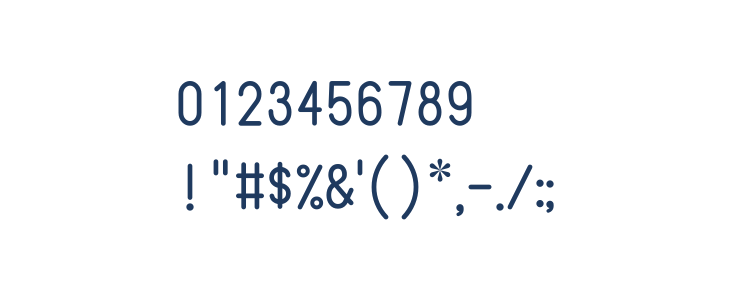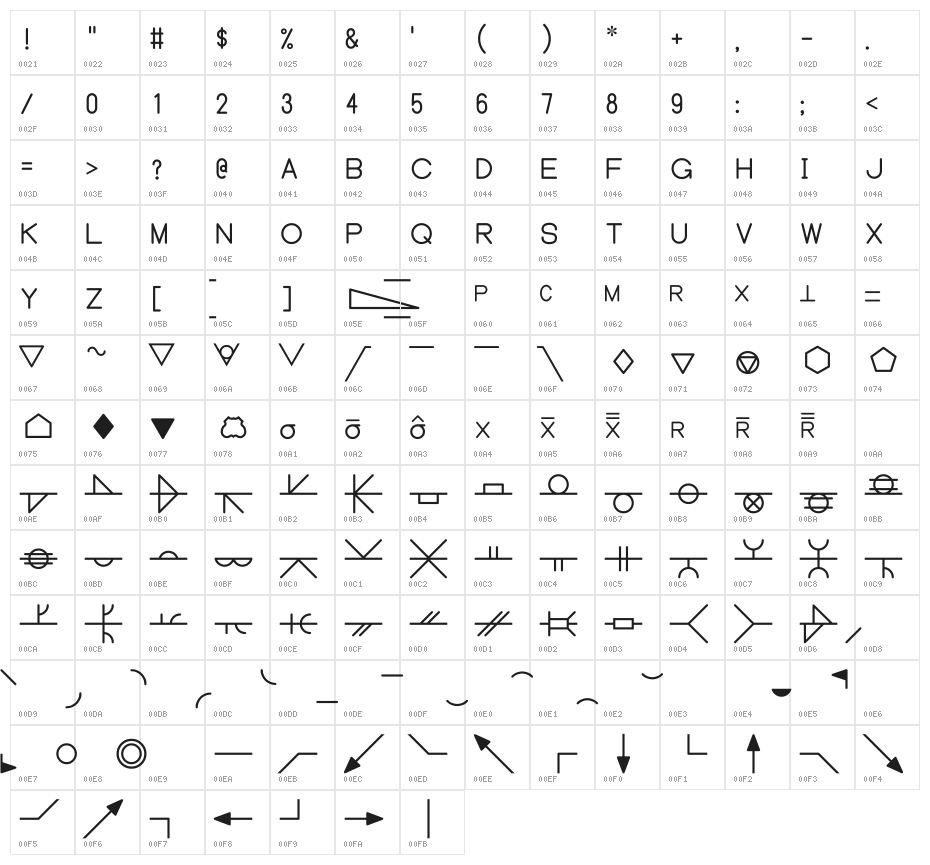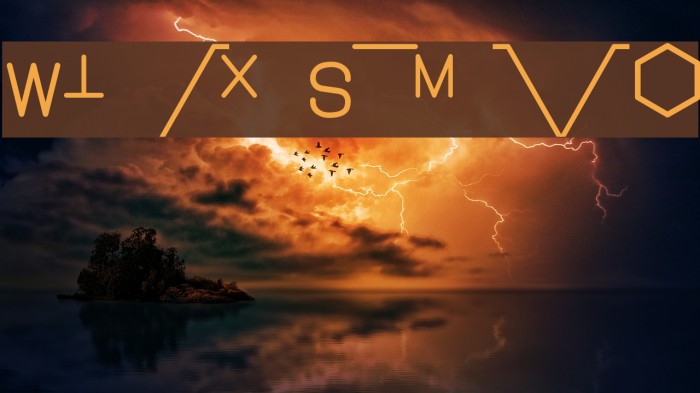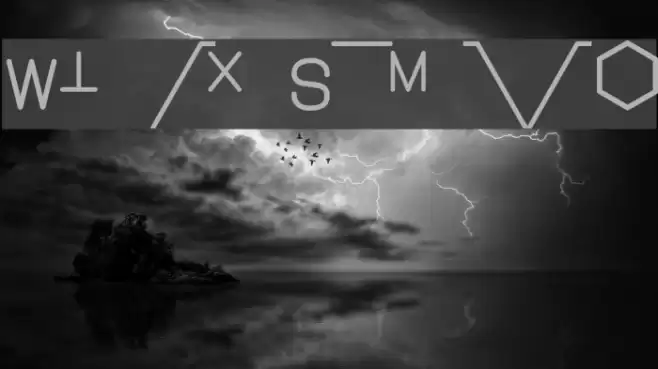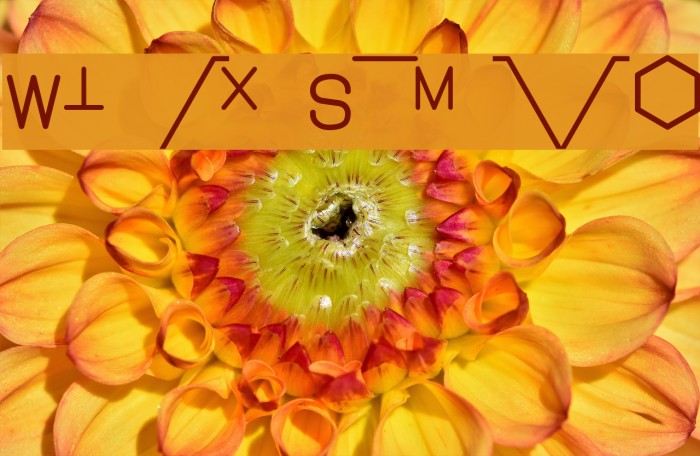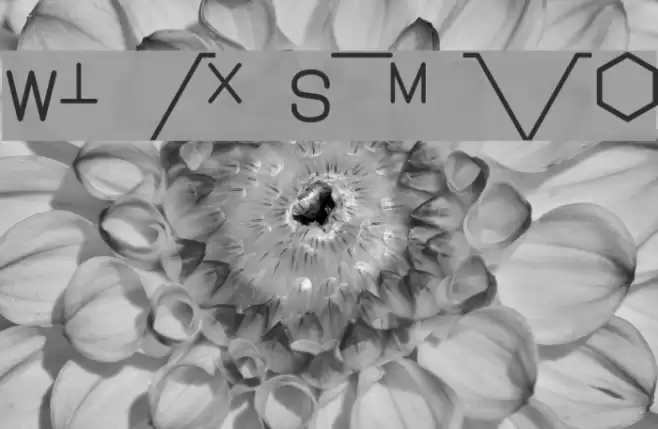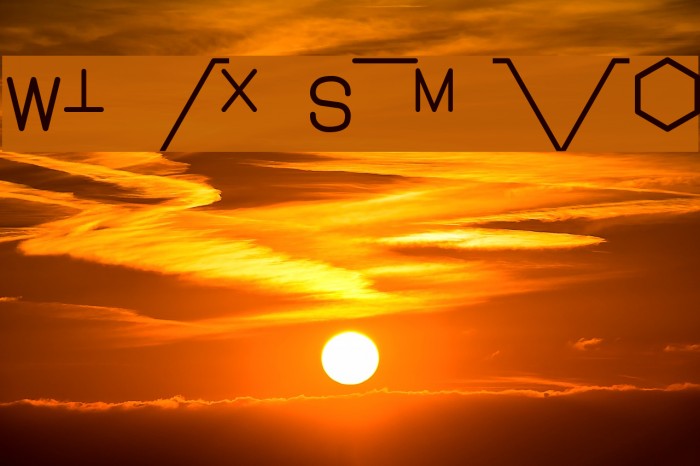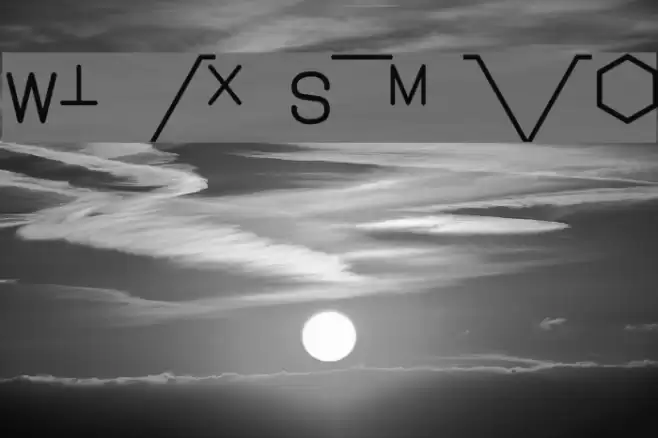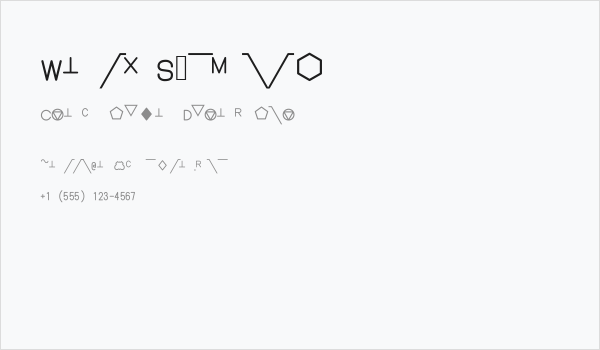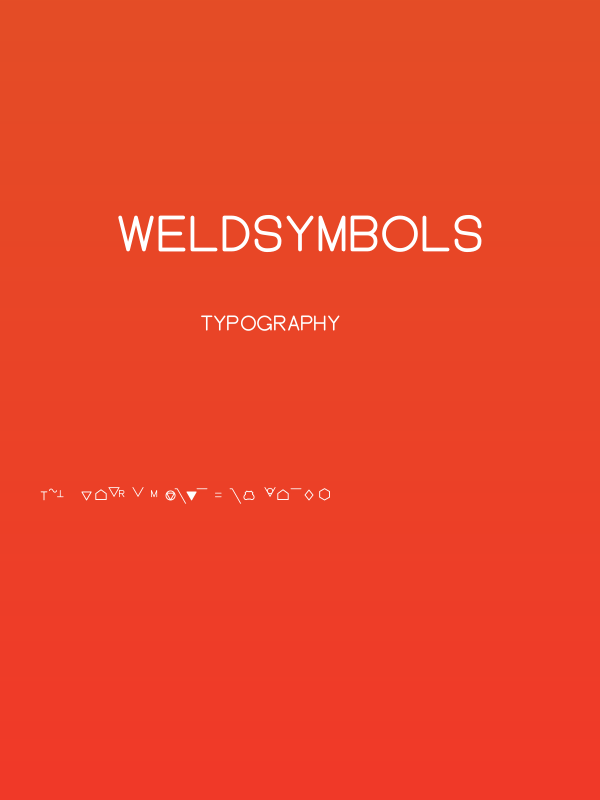
WeldSymbols Font
WeldSymbols Description
This font features a clean, geometric sans-serif style with a modern aesthetic. The uppercase letters are uniform in height and width, providing a balanced and structured appearance. The lowercase letters maintain the same geometric precision, ensuring consistency throughout. Numbers are clear and easily readable, matching the overall style of the alphabet. Special characters and symbols are included, adding versatility to the font. The design is minimalistic, with a focus on clarity and simplicity, making it suitable for a variety of applications.
| Use Case | Technical documents, digital interfaces, branding. |
| Proposed Projects | Ideal for technical documents, architectural plans, modern branding, and digital interfaces. |